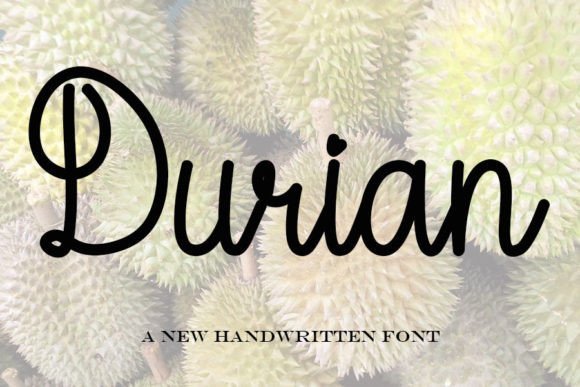
Discover the Allure of Durian Font
Have you ever found yourself staring at a blank canvas, searching for the perfect font to bring your design to life? The moment of inspiration is fleeting, and it’s easy to get caught up in the sea of options available. But what if you stumbled upon a font that exudes elegance and sophistication, a true gem that elevates your project to the next level?
Meet Durian Font, a beautiful handwritten font that adds a touch of sophistication to any design. Its unique style is both timeless and distinct, making it the perfect choice for creatives who want to make a statement. With Durian Font, you’ll be able to create spectacular designs that leave a lasting impression. Whether you’re a seasoned designer or just starting out, this font is a valuable addition to your toolkit.
Durian Font Key Features
- Font Family: Durian Font is a unique, hand-drawn font family designed to evoke the exotic and tropical feel of Southeast Asia.
- Character Set: The font family includes over 1000 glyphs, covering a wide range of languages, including Latin, Cyrillic, and Greek alphabets.
- Size: The font is available in multiple weights, ranging from Thin to Extra Bold, allowing for a wide range of design applications.
- Unique Characteristics: The Durian Font features a distinctive, organic design with intricate details and flourishes, making it ideal for creating eye-catching and memorable designs.
Durian Font Review
When I first laid eyes on the Durian Font, I was immediately struck by its unique aesthetic. The font’s bold, exotic feel is sure to make a statement in any design project. ✨ The letterforms are well-crafted, with a sense of texture and depth that adds to the overall impact.
One of the standout features of the Durian Font is its versatility. It can be used for a wide range of applications, from headlines and titles to body text and even logos. ✨ The font’s exotic feel makes it a great choice for designs that require a touch of the unknown or the unusual.
However, there are some limitations to the Durian Font that designers should be aware of. ⚠️ The font may not be suitable for projects that require a high level of legibility, as the letterforms can be quite dense and may be difficult to read in certain contexts. Additionally, the font’s bold feel may not be suitable for projects that require a more subtle or understated approach.
Overall, I would give the Durian Font 4 out of 5 stars. While it has some limitations, its unique aesthetic and versatility make it a valuable addition to any designer’s toolkit.
- Unique, exotic aesthetic
- Well-crafted letterforms with texture and depth
- Versatile and suitable for a wide range of applications
- May not be suitable for projects that require high legibility
- May not be suitable for projects that require a subtle or understated approach
Durian Font Practical Application Guide
The Durian Font is ideal for creating bold, eye-catching headings and titles.
Use it to add a touch of personality to your designs, or to create a unique visual identity for your brand.
Some common use cases include:
– Headlines and titles
– Marketing materials
Alternatives to Durian Font
1. Bangers Font
The Bangers Font is a bold and playful sans-serif font that is ideal for use in headings and titles. It has a similar energetic feel to Durian Font, but with a more rounded and approachable design.
When to use: Bangers Font is perfect for creating a fun and youthful atmosphere in designs such as food blogs, children’s products, or social media graphics.
Comparison to Durian Font: While both fonts have a bold and playful feel, Bangers Font is more rounded and approachable, whereas Durian Font has a more angular and edgy design.